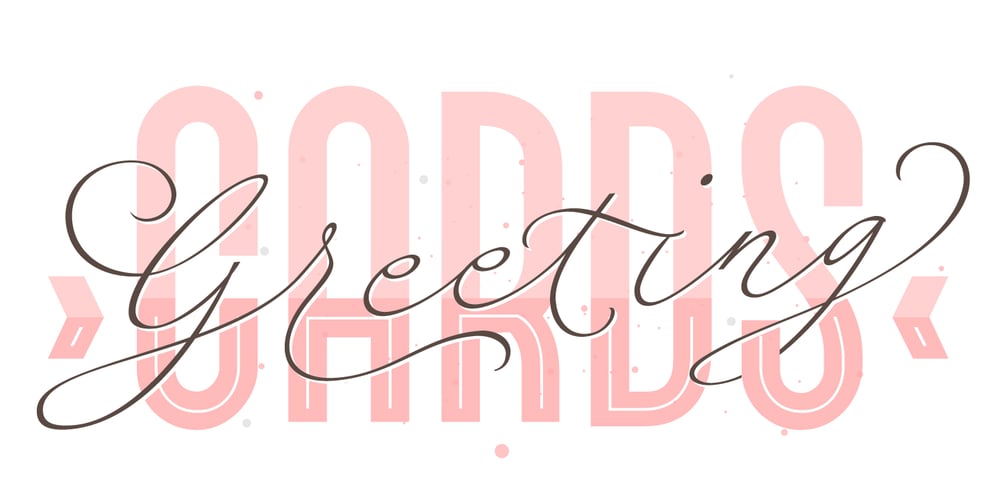
Fluire
Fluire font
Fluire Font Family was designed by Maximiliano R. Sproviero and published by Sproviero Type. Fluire contains 5 styles and family package options. MAS AMOR POR FAVOR (1) (more love, please) Fluire means -to flow- in Italian and that’s what this font is all about. The story began when a friend of mine asked for a tattoo with the word -Fluir- (to flow in Spanish). She didn’t want a tattoo full of swashes and swirls, like I’m used to doing, but something more fluent, soft and minimal. My very first attempts were more related to copperplate calligraphy but I wasn’t even close: I discovered that I needed to forget a little bit about the classic contrast and speed of the engrosser’s nib and started playing with a tiny flat metal nib. Letters started to flow, and I immediately thought of turning them into a font. Inspired by the tattoo I created and by other tattoos I saw, I started the journey of what would be a very fun process. The result is a very cute, almost monoline font with a wide range of uses. USES If not used for a tattoo (my first ‘target’), the font delivers amazing results in combination with Fluire Caps: These two need each other, they go together, they talk. I designed Fluire Caps Down and Fluire Caps Up so it’s easier to manage their colors. Also there’s Fluire Caps Down Lines, which has a decorative thin line to add yet another dimension. Use the fonts in magazines, book covers, posters, greeting cards, weddings, lettered walls, storefronts! TIPS Since the font is Open-Type programmed, I strongly recommend using it in applications that support that feature. Also, the font looks way better when -contextual alternates- are activated, but it’s your choice 🙂 Try Fluire, and keep flowing. NOTES (1) The phrase alludes to maybe the most tattooed phrase in Latin America.